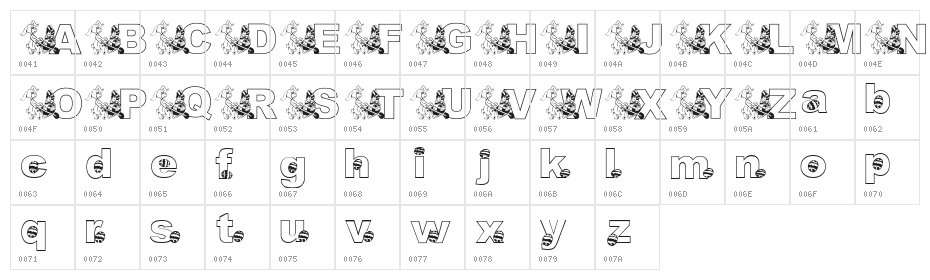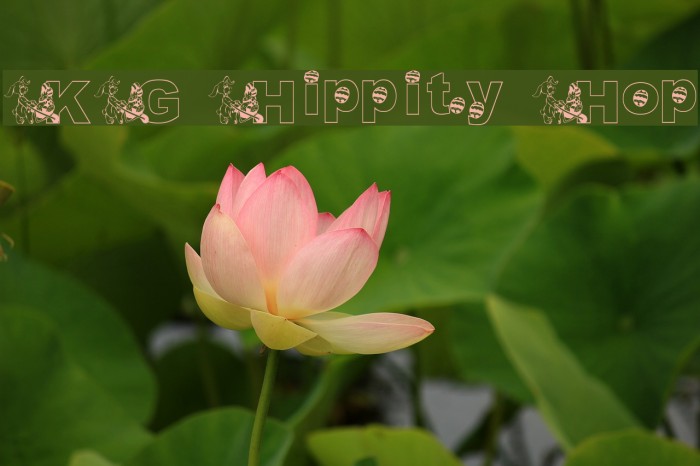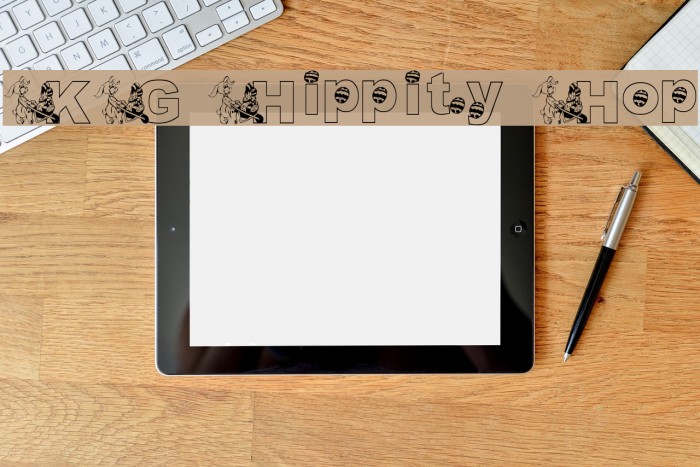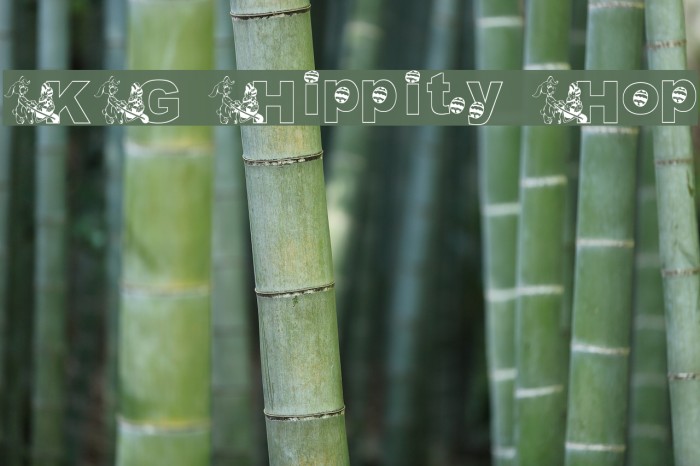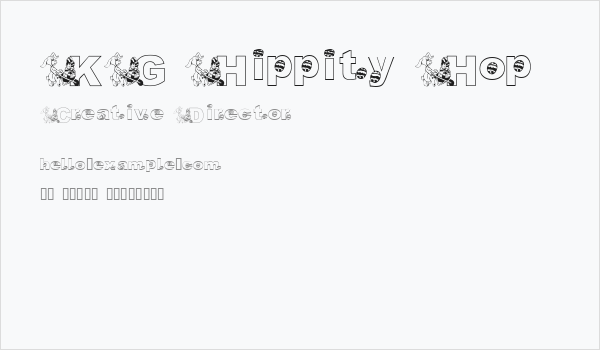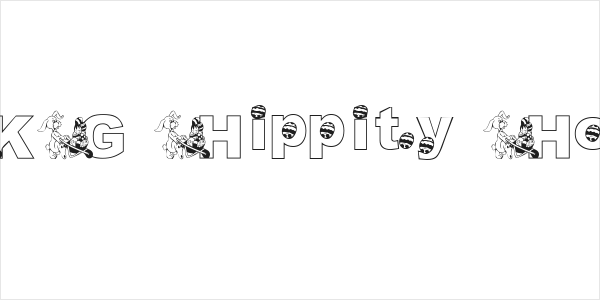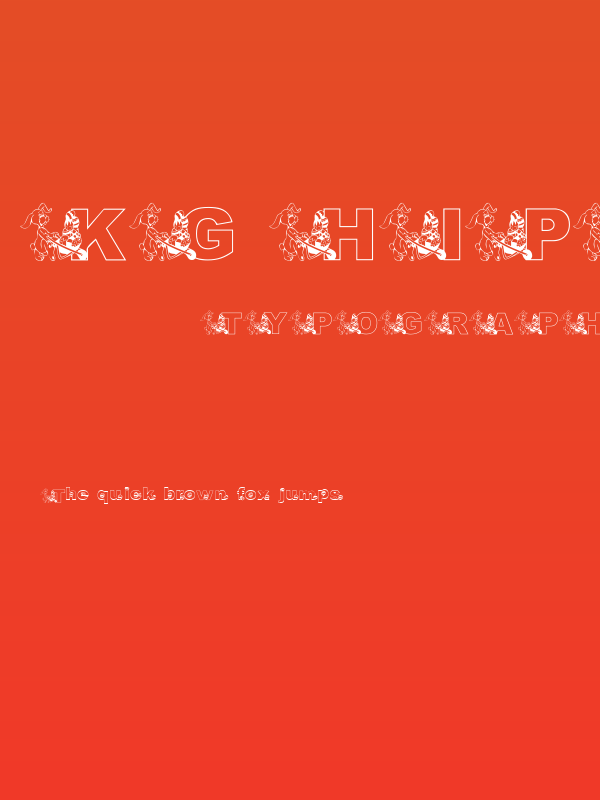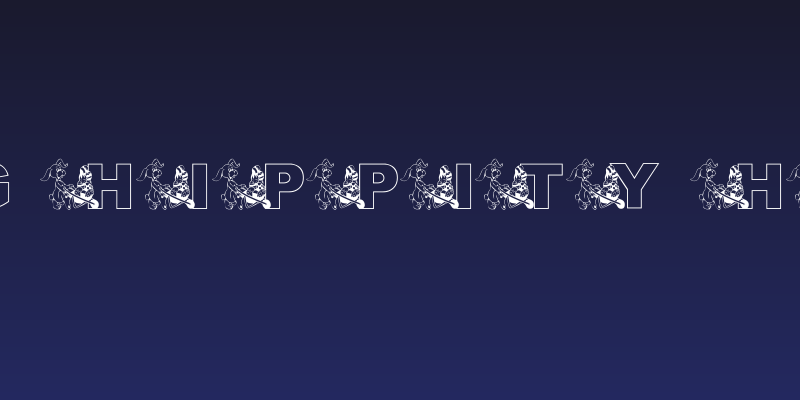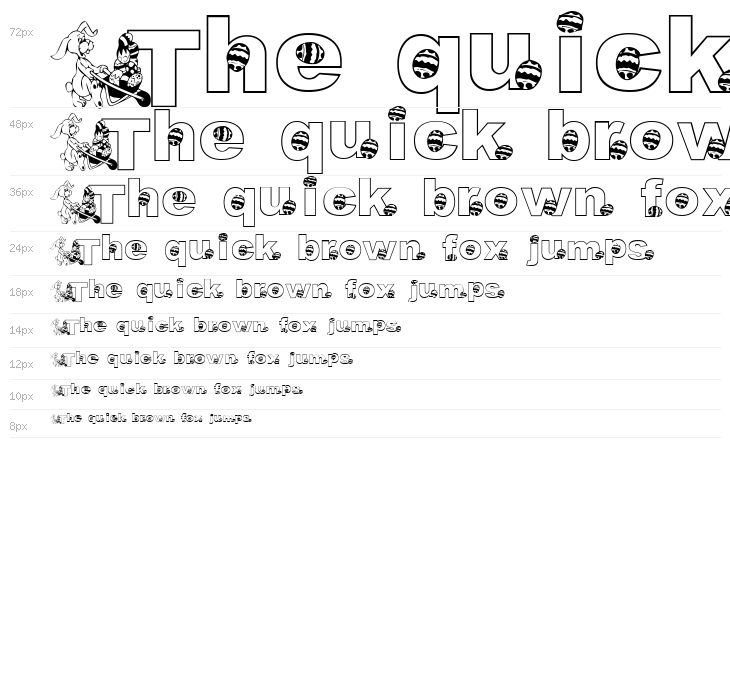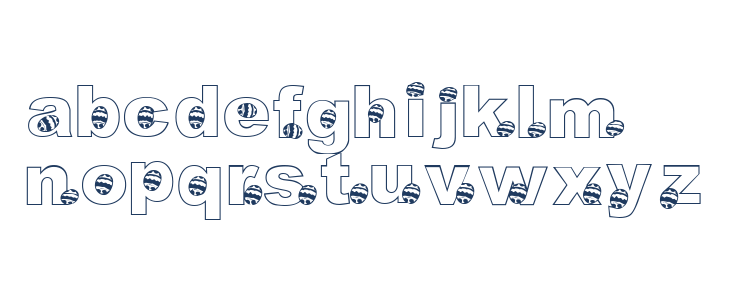
KG Hippity Hop Font
KG Hippity Hop Description
This playful and decorative font features a whimsical design with each letter incorporating elements of Easter-themed graphics, such as bunnies and eggs. The uppercase and lowercase letters are outlined, creating a light and airy feel, while the interior graphics add a festive touch. The font maintains a consistent style throughout, with a focus on fun and celebration. It is perfect for projects that require a joyful and thematic appearance, making it ideal for holiday cards, children's party invitations, and festive decorations.
| Use Case | Headlines, Logos, Decorative text |
| Proposed Projects | Ideal for Easter cards, children's party invitations, festive banners, and holiday-themed crafts. |